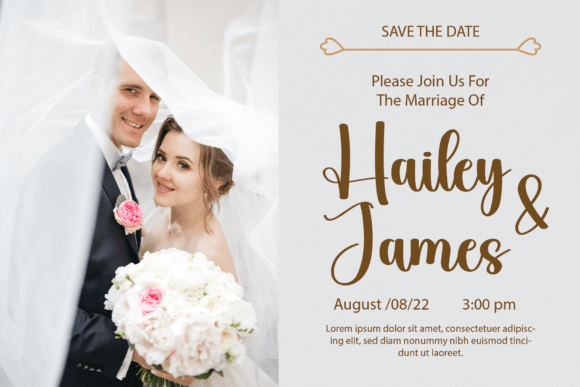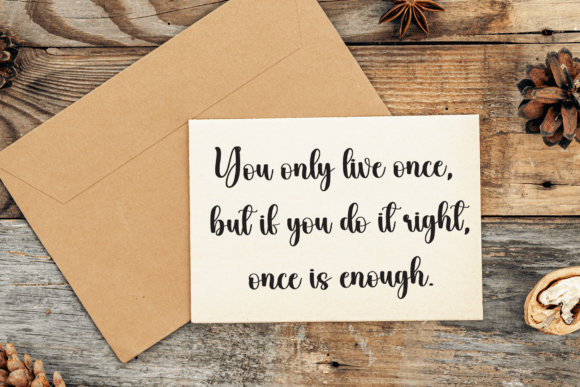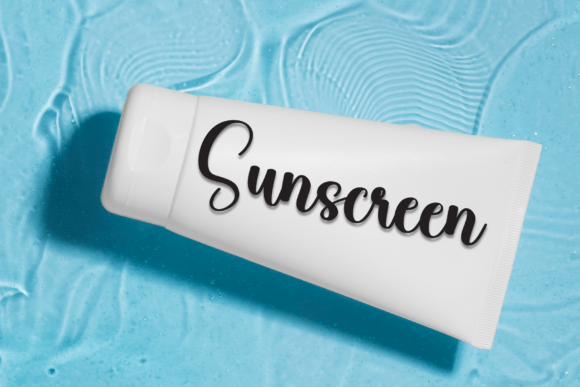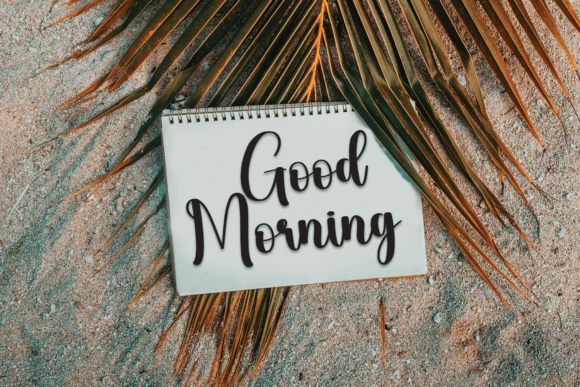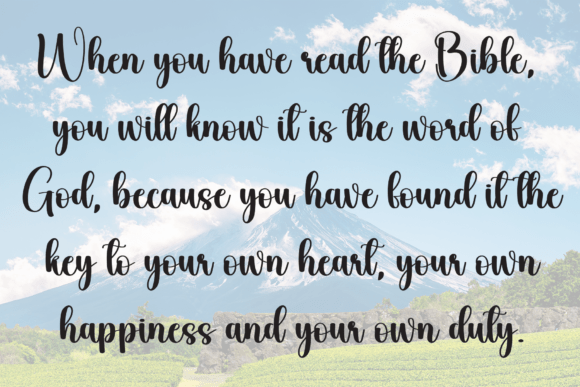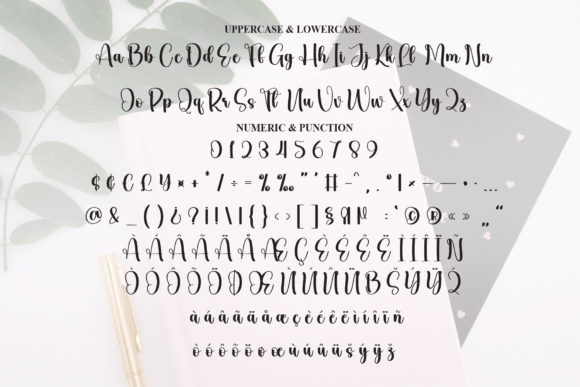
Introducing Deary Heart Font: Elevate Your Designs with Elegance and Charm
In the world of typography, few fonts manage to strike a balance between elegance and modernity. Deary Heart Font is one such exceptional typeface that seamlessly blends sophistication with a contemporary flair. This stylish handwritten script font is designed to bring warmth, refinement, and a personal touch to a wide range of projects, making it an indispensable asset for designers and crafters alike.
The Essence of Deary Heart Font
Deary Heart Font is characterized by its flowing strokes and organic curves, which lend a sense of fluidity and natural beauty to any design. Its elegant and refined appearance makes it an ideal choice for projects that demand a high level of sophistication. Whether you’re working on branding, invitations, social media content, or any other creative endeavor, Deary Heart Font is sure to add a touch of class and effortless charm.
Key Features of Deary Heart Font
- Handwritten Script Style: Deary Heart boasts a beautiful, handwritten script style that exudes warmth and personality.
- Elegant and Modern: The font combines traditional elegance with a modern twist, making it versatile for various design applications.
- Flowing Strokes and Organic Curves: Its fluid strokes and curves give the font a natural, effortless look that captivates the audience.
- Highly Versatile: Suitable for a range of projects including branding, invitations, social media graphics, and more.
- Easy to Read: Despite its elegant and cursive nature, Deary Heart maintains a high level of readability, making it perfect for both short phrases and longer texts.
Applications of Deary Heart Font
The versatility of Deary Heart Font makes it an excellent choice for various design projects. Here are some of the areas where this font truly shines:
- Branding: Use Deary Heart to create a distinctive and memorable brand identity that stands out from the competition.
- Invitations: Add a touch of elegance and sophistication to your event invitations, be it weddings, parties, or corporate events.
- Social Media Graphics: Elevate your social media content with eye-catching graphics that showcase the font’s modern and stylish appeal.
- Packaging: Incorporate Deary Heart into your product packaging designs to give them a premium and luxurious feel.
- Stationery: From business cards to letterheads, Deary Heart can add a refined touch to your professional stationery.
Tips for Using Deary Heart Font Effectively
To make the most out of Deary Heart Font, consider the following tips:
- Pair with Complementary Fonts: Combine Deary Heart with clean, sans-serif fonts for a balanced and harmonious design.
- Adjust Letter Spacing: For better readability, especially in longer texts, adjust the letter spacing to ensure a comfortable flow.
- Experiment with Colors: While Deary Heart looks stunning in black, don’t hesitate to experiment with different colors to match your brand’s palette or design theme.
- Use it as a Title Font: Deary Heart’s elegance and charm make it an excellent choice for titles and headings, adding a sophisticated touch to your designs.
Deary Heart Font is a beautiful and versatile typeface that brings a unique blend of elegance, modernity, and charm to any design project. Its flowing strokes, organic curves, and refined appearance make it an ideal choice for designers and crafters looking to add a personal and sophisticated touch to their work. Whether you’re creating branding materials, invitations, social media graphics, or more, Deary Heart Font is sure to elevate your designs to new heights of style and sophistication.